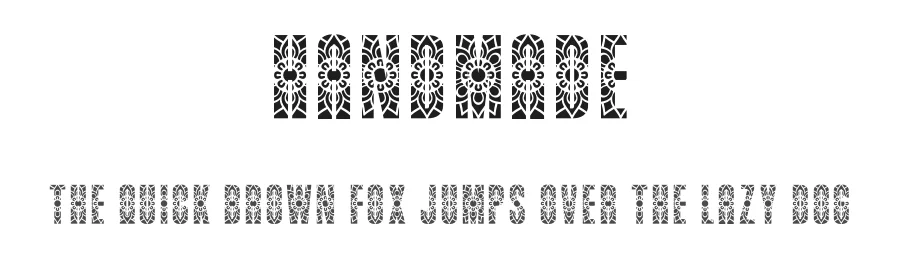
Diskoteque is a decorative font designed by Pizzadude. It includes 95 glyphs, a regular weight, TTF (TrueType) format, and 102 languages. Diskoteque is free to download; check the license details on this page before commercial use. Decorative fonts like Diskoteque work best for logos, posters, packaging, and standout headlines.
Diskoteque Font is a decorative font that shines as a display or heading face. Pair it with a clean sans-serif or serif font for body text β the contrast creates a clear hierarchy while the two styles stay balanced and easy to read.
Diskoteque Font is a decorative typeface by Pizzadude, ideal for logos, invitations, branding, and creative projects.